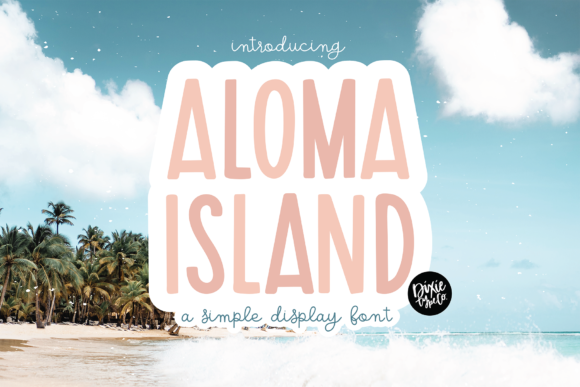
Looking for the perfect font to add a touch of simplicity and elegance to your next project? Look no further than Aloma Island, the best font for biscotti sign available on the market today.
Created by dixietypeco, Aloma Island is a classic sans serif font that is both versatile and easy to read. Its clean lines and simple design make it the perfect choice for a wide variety of projects, from invitations and business cards to website headers and more.
But what really sets Aloma Island apart from the competition is its ability to elevate your creative ideas to the next level. With this font in your toolkit, you'll notice an instant difference in the way your designs stand out from the crowd.